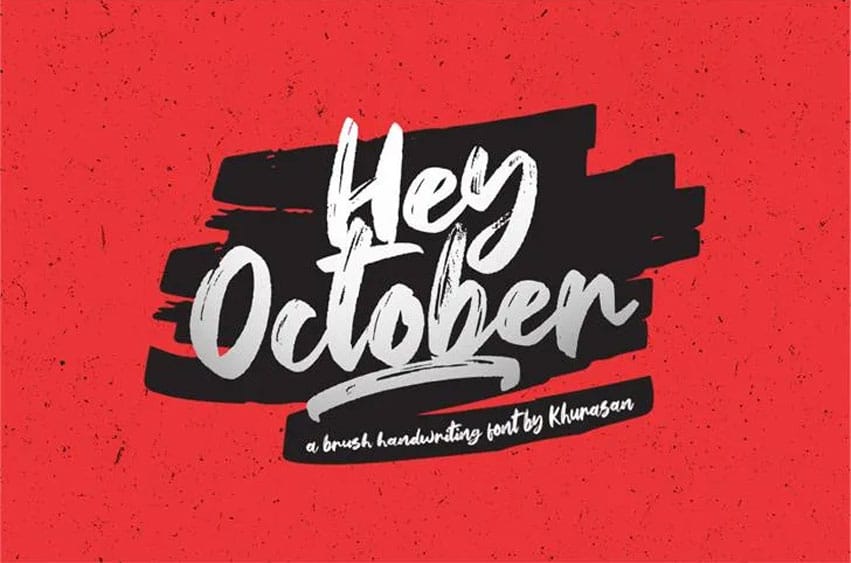
Hey October Font is a beautiful brush font that is developed by Khurasan the font is available for free download for both personal as well as commercial purpose.
The free version can type all the letters of the alphabet both in uppercase and lowercase and several special characters as well.